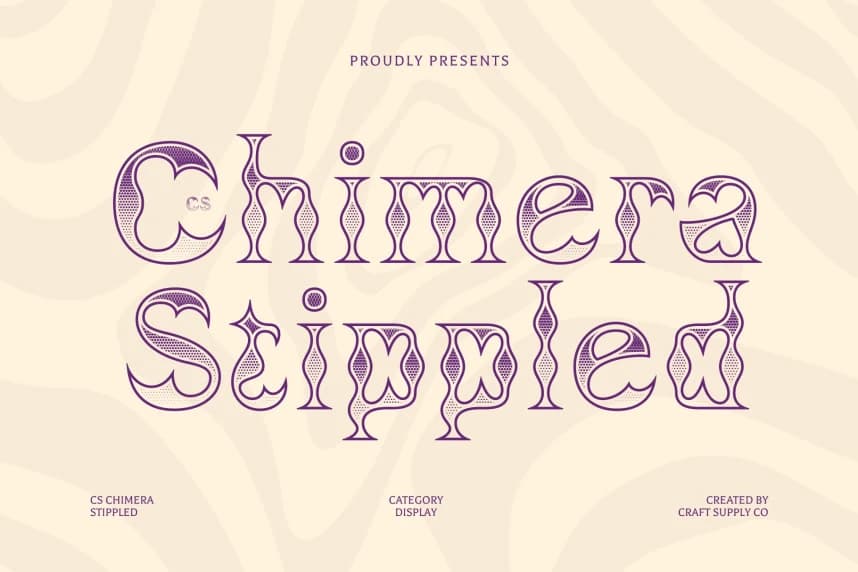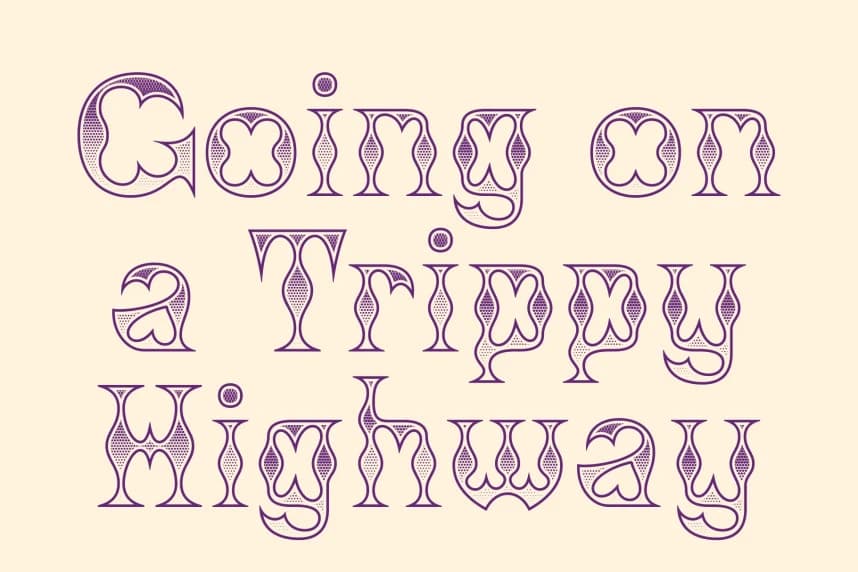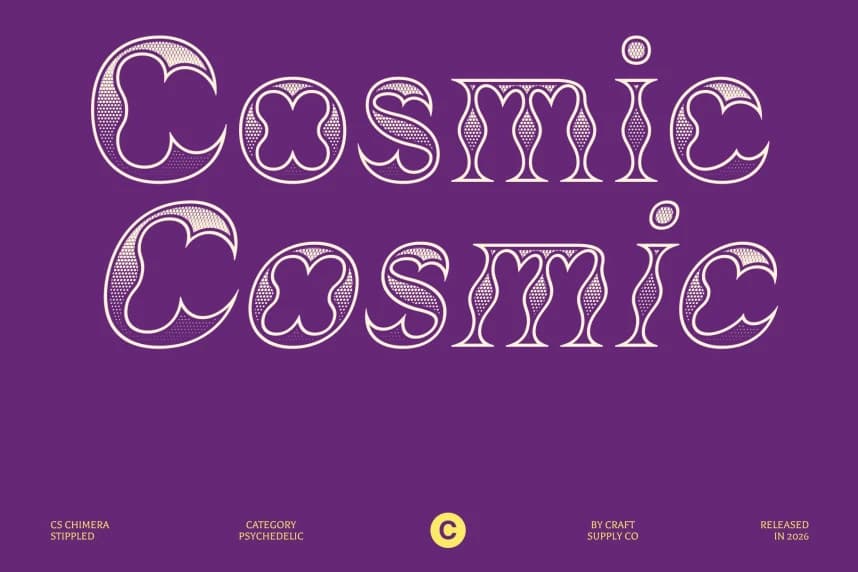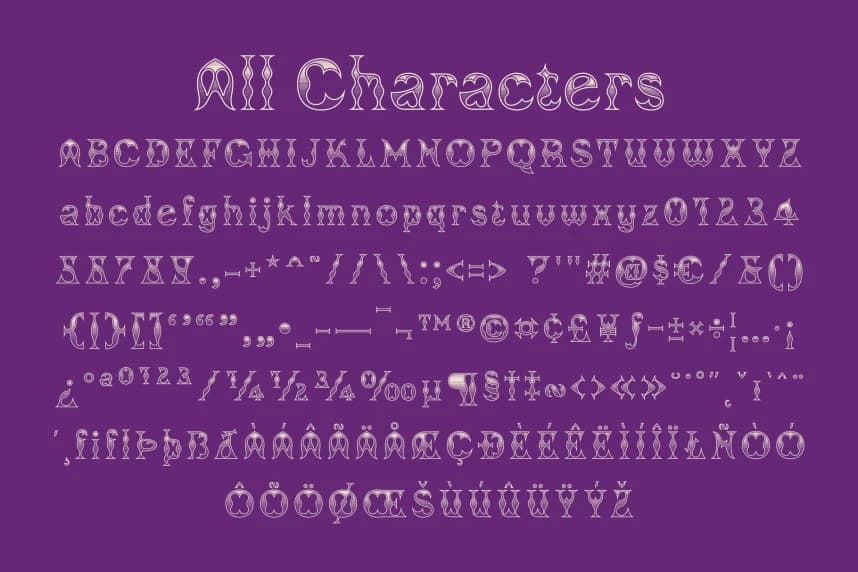
CS Chimera Stippled Font
CS Chimera Stippled Font – Psychedelic Font with Bold Textured Energy Display Font with Psychedelic and Funky Character. This is a striking display font that blends psychedelic and funky design elements into a bold